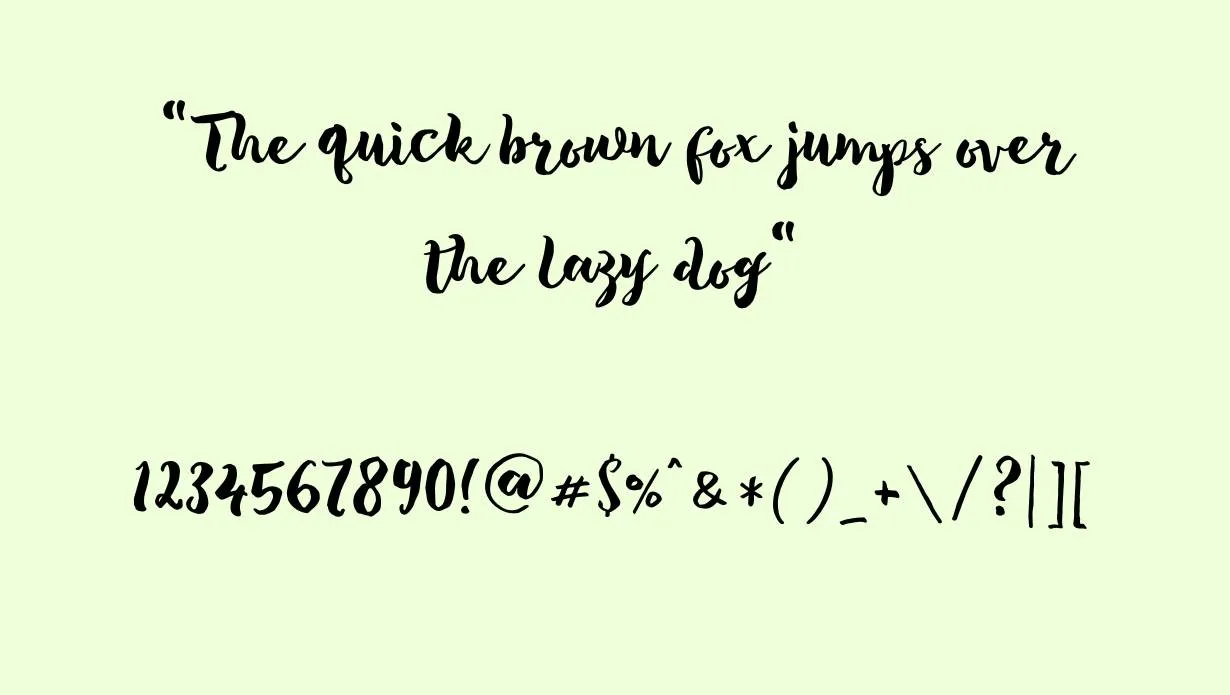
Feel the island vibes with The Tropical Script font. It’s like your words are dancing in the sunshine. The letters have a playful and flowing design, making your text look as lively as a tropical breeze.
This font is perfect for projects that want to capture the carefree spirit of a vacation. Whether you’re designing a beach party invitation or creating a logo for a resort, The Tropical Script v font adds a touch of paradise to your words, making them as refreshing as a sip of coconut water.